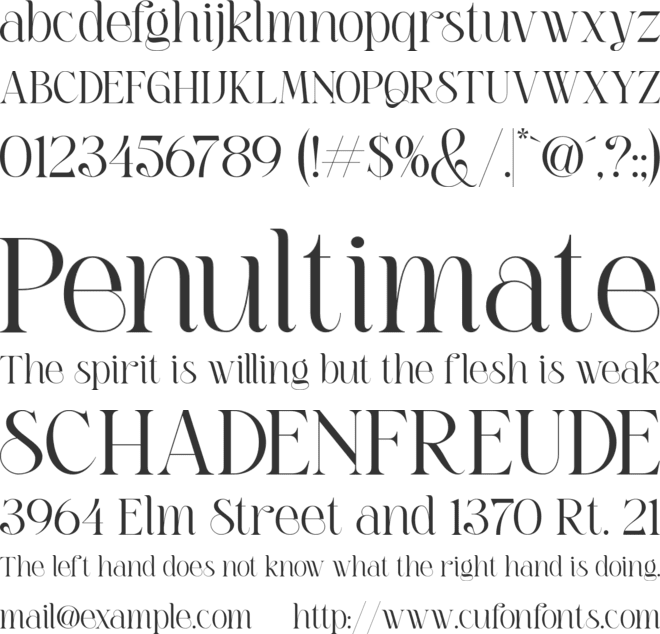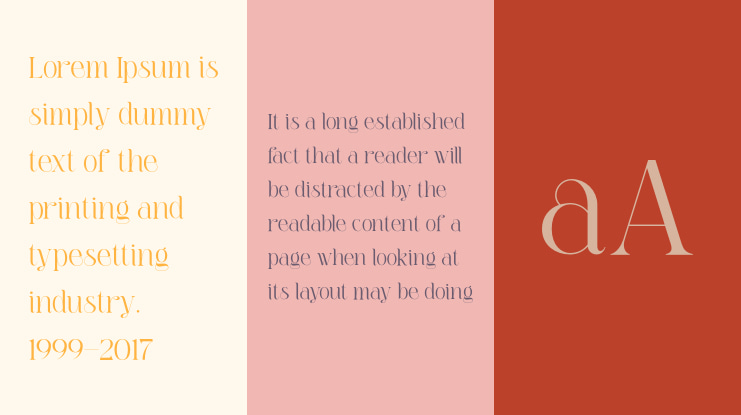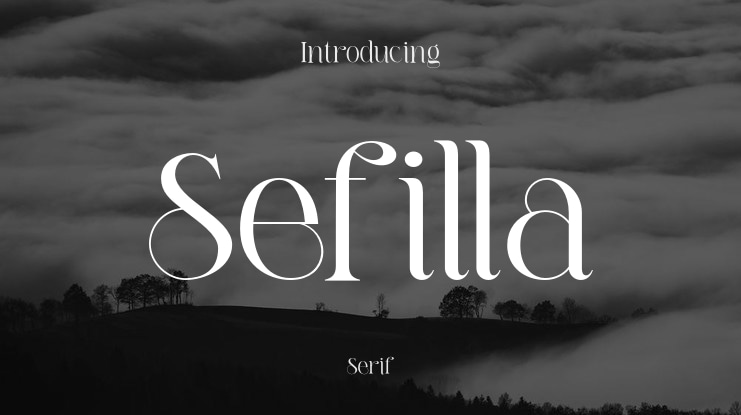
Sefilla Font
Sefilla is a modern stylistic serif font specially made for lovers of modern and trendy styles, especially for women, it has a very smooth and consistent font in every letter, making this font very suitable for short and even long sentences.